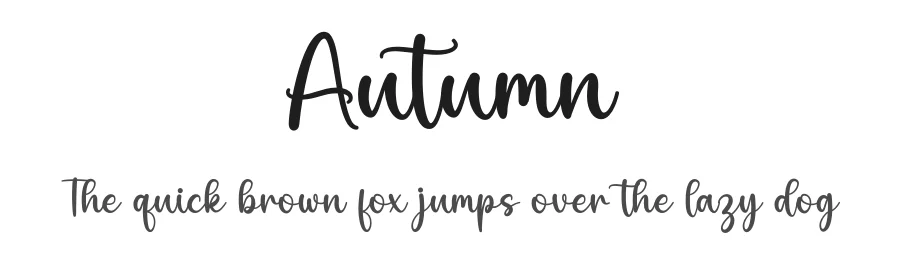
About Ambitious Font
Ambitious Specifications
| Font Family | Ambitious |
| Full Name | Ambitious |
| Glyph Count | 244 glyphs |
| PostScript Name | Ambitious |
| Designer | Staircase Studio |
Ambitious ships with 1 OpenType feature you can switch on in apps that support them (Illustrator, InDesign, Affinity, Figma, CSS font-feature-settings).
Ambitious supports 224 languages.
Ambitious Font is a script font that shines as a display or heading face. Pair it with a clean sans-serif or serif font for body text β the contrast creates a clear hierarchy while the two styles stay balanced and easy to read.